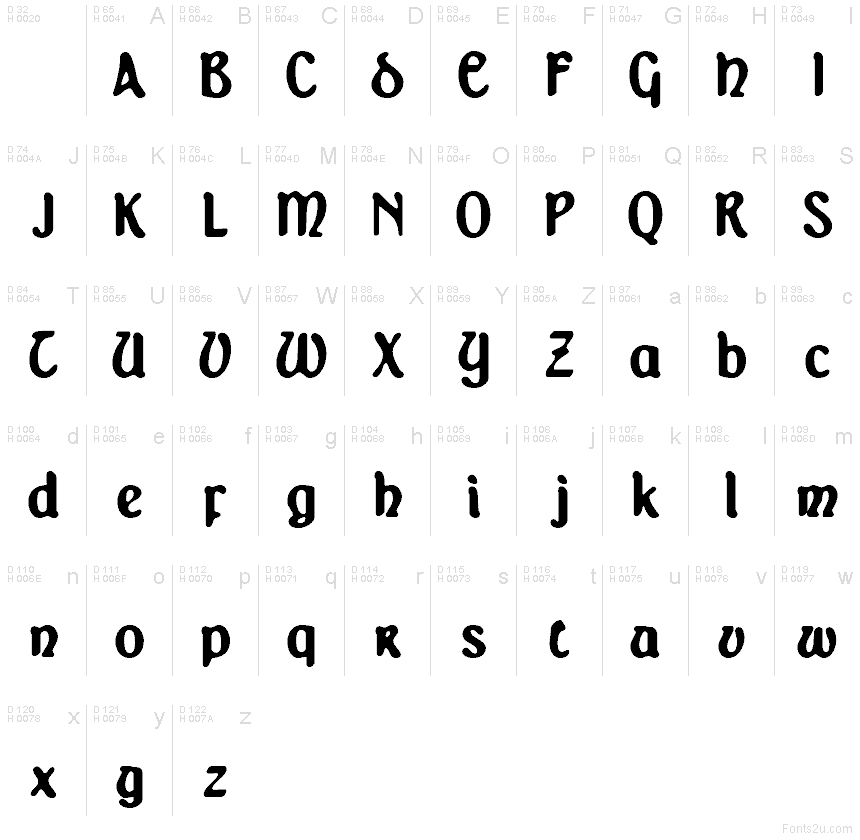
CSRawlineDrawn-Regular Demo
CS Rawline Draw font by Craft Supply Co. is a free bold retro serif display font from the CS Rawline family. It stands out with soft-shouldered curves, inky swells, and chunky rhythm that feels hand-drawn yet clean. The rounded terminals and sculpted counters give headlines a warm, tactile presence, while the compact spacing keeps words cohesive and punchy.
Using CS Rawline Draw, titles snap to attention without shouting—great for posters, packaging, cafe menus, event branding, album covers, and social media graphics. This free font shines on large sizes where its bulbous strokes and smooth edges can breathe. Simple tip: set it big and pair with a crisp geometric sans or a lighter CS Rawline companion for body copy.